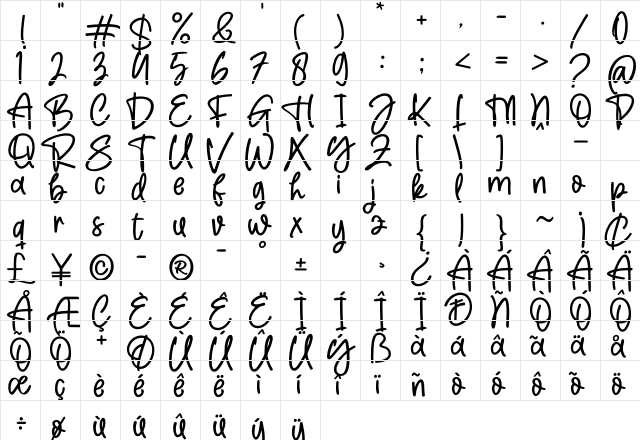
The Crafter Regular
Design Context for The Crafter Typeface
The Crafter is a composed and adaptable typeface that performs quietly and consistently across a wide range of design contexts.
Pro Tip: Use The Crafter in both headline and body roles to test its range before committing to a single application.